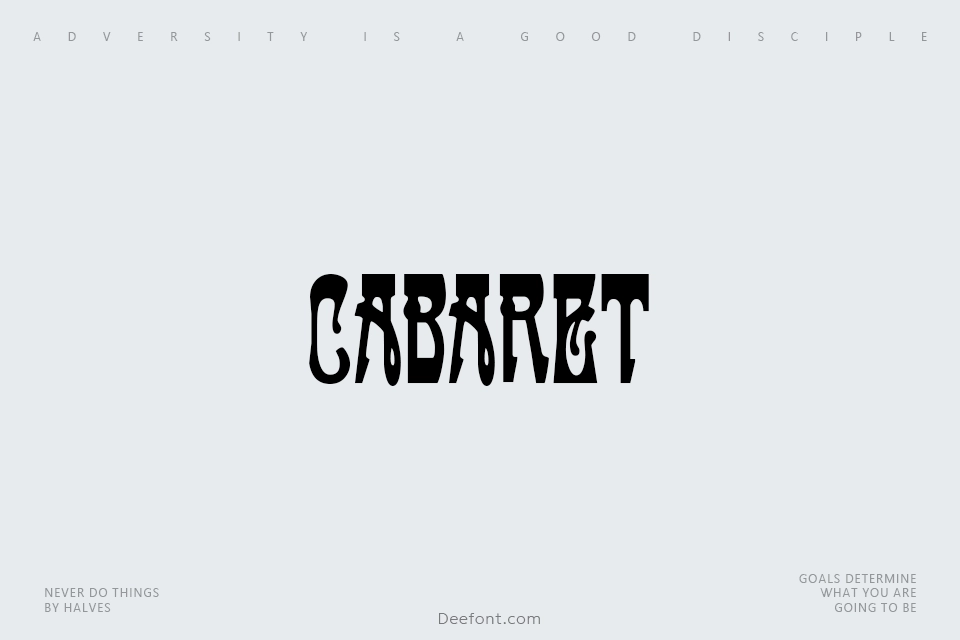
Cabaret Font
Cabaret is a distinctive Art Nouveau display font created by Dieter Steffmann, featuring elegantly decorative uppercase letters with ornamental flourishes. This fancy retro typeface includes three font variations: Regular, Contour, and Shadow styles. The font family showcases bold, angular characters with a vintage 1920s-inspired aesthetic, perfect for theatrical posters, headlines, and creative branding projects. With its unique Art Nouveau styling, Cabaret brings nostalgic charm and sophisticated elegance to any design, making it ideal for projects requiring a touch of classic theatrical flair and decorative impact.
Designed by:Dieter Steffmann